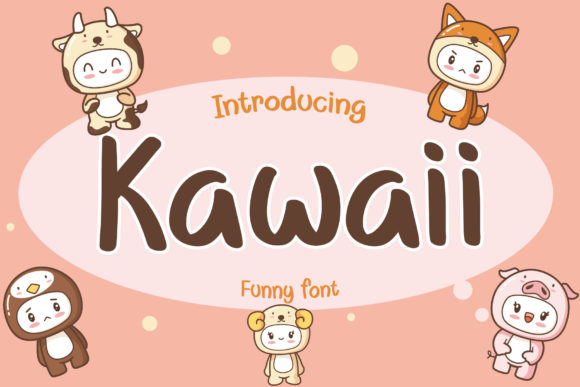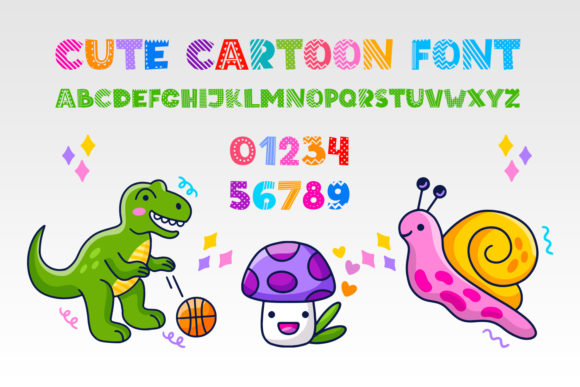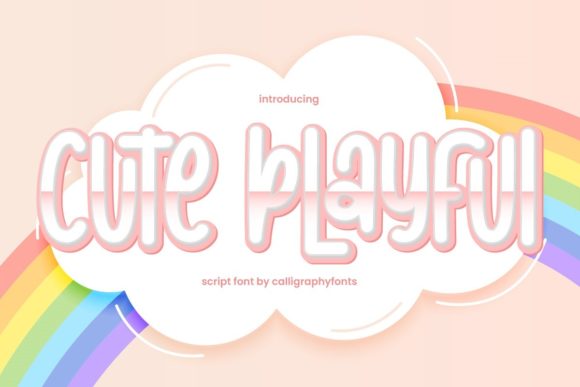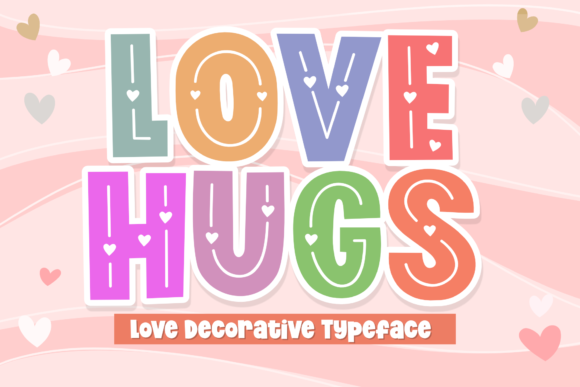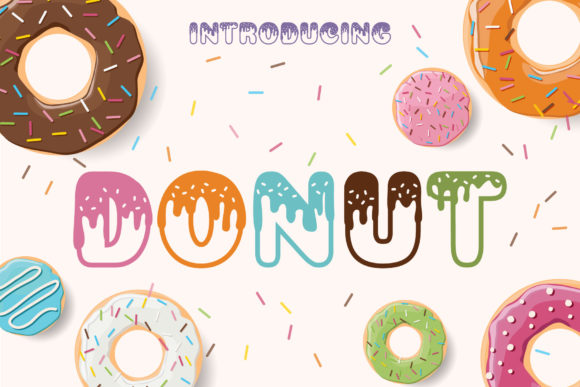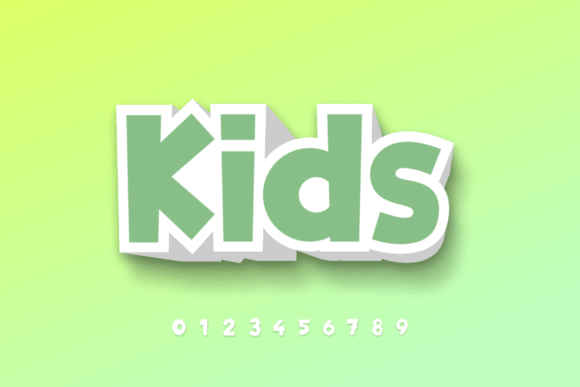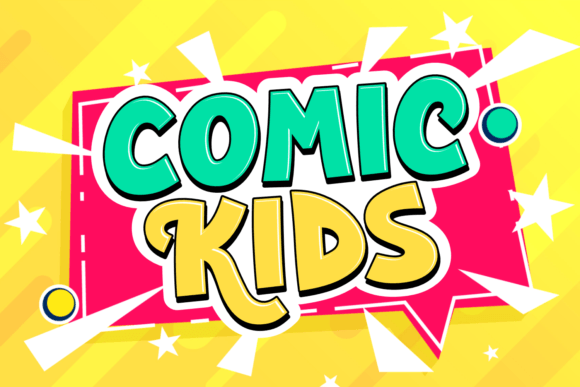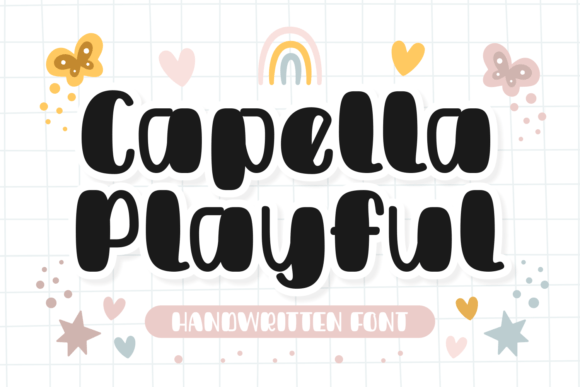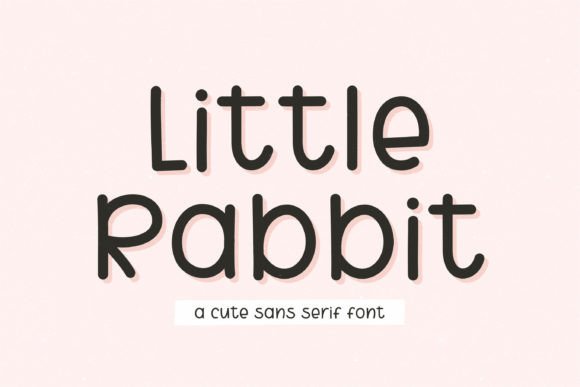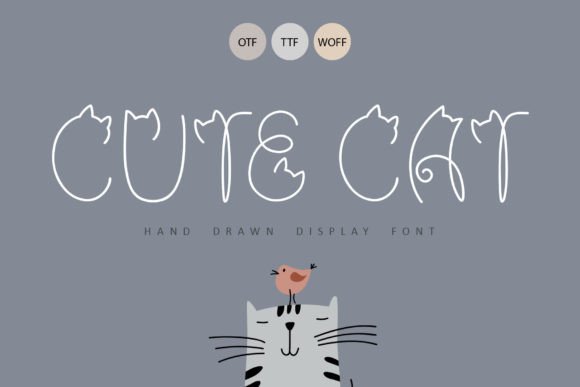
23 Cute Fonts for Kawaii, Kids & Playful Designs
Cute Fonts & Playful Typography
Discover cute fonts for kawaii projects, kids’ designs, playful branding, stickers, invitations, packaging, apparel, social graphics, and creative crafts. These adorable typefaces can add personality, warmth, and a cheerful visual style to your designs.
Why cute fonts work so well: Cute typography can instantly make a design feel friendly, cheerful, playful, and approachable. Kawaii lettering, rounded shapes, whimsical forms, and expressive display styles are especially useful for children’s projects, stickers, invitations, packaging, crafts, apparel, and social media graphics.
How to Choose a Cute Font
Start by thinking about the mood of your project. Kawaii fonts often have a charming and whimsical personality, while kids’ fonts can feel energetic, friendly, and approachable. More general cute fonts can work across invitations, stickers, packaging, crafts, and social media content.
Readability is also important. Decorative fonts are usually most effective for headlines, names, labels, short phrases, and other display text. For longer copy, pair the cute font with a simple sans-serif or serif to create a clear hierarchy.
23 Cute Fonts for Kawaii, Kids & Playful Designs
Here are 23 cute, kawaii, kids, cartoon, and playful fonts for creating cheerful designs. Use them for children’s products, stickers, invitations, apparel, packaging, crafts, logos, social media graphics, and more.
01 · Kawaii Font
Kawaii Font — AquariiD
A kawaii-inspired display font designed for cute and expressive creative work. Its playful character makes it a natural fit for designs that need a charming and cheerful typographic personality.
02 · Kawaii Font
Kawaii Font — Honiiemoon
A cute kawaii display style with a friendly and expressive character. It can bring a playful atmosphere to short headlines, names, labels, and other decorative typography.
03 · Cute Cat Font
Cute Cat Font — Happy Letters
A cute cat-themed display font with a playful personality. It is well suited to projects featuring animal characters, whimsical illustrations, and cheerful children’s or kawaii aesthetics.
04 · Sweet Display Font
Sweet Heart Font
A sweet and playful display style that can add a charming personality to romantic, cheerful, and decorative designs. Its name and character make it particularly suitable for heart-themed and friendly projects.
05 · Cute Display Font
Stay Cute Font
A cheerful cute display font created for playful visual messages. It works especially well when the typography itself is part of the personality of the design.
06 · Kids Font
Kids Font — Color Studio
A playful kids-oriented display style for children’s creative projects. It can bring energy and personality to headlines, educational designs, products, and family-friendly graphics.
07 · Playful Kids Font
Playful Kid Font
A playful typeface designed around a youthful and cheerful direction. It can add a friendly visual touch to children’s projects and other lighthearted designs.
08 · Cute Playful Font
Cute Playful Font
A cute and playful display style for cheerful graphic projects. It can help make short phrases, titles, and decorative elements feel friendly and expressive.
09 · Cartoon Font
Cute Cartoon Font — OWPictures
A cute cartoon-inspired display font for playful and illustrated designs. It can add a youthful quality to headlines and short phrases in children’s and entertainment-focused projects.
10 · Cute Font
Cute Font — Jan Jao Studio
A cute display typeface for cheerful and decorative projects. It can bring a friendly personality to names, headlines, labels, and short phrases.
11 · Kids Font
Kids Font — kalingga.albert
A children’s display style designed for playful and friendly visual projects. It can work well for short headlines and decorative typography in kid-focused designs.
12 · Kids Display Font
Kidszone Font
A playful display font centered around children’s design applications. Its youthful direction can add a cheerful typographic element to projects for kids and families.
13 · Kawaii Font
Barbie Kawaii Font
A kawaii-inspired display style with a playful fashion-oriented character. It can be used for colorful, cute, and expressive projects where the typography needs to feel youthful and decorative.
14 · Playful Font
Playful Font — jinanstd
A playful display font designed to give typography a cheerful and expressive quality. It can work across a range of lighthearted design applications.
15 · Playful Font
Playful Font — Pila Studio
A cheerful display style for designs that need a playful typographic presence. It is suitable for short headlines, names, labels, and other decorative text.
16 · Playful Typography
Playful Font — Pasha Larin
A playful display font for expressive and cheerful design compositions. It can add visual personality to short text and decorative headline treatments.
How many fonts should I use in a cute design?
One main decorative font paired with one simple supporting typeface is often enough. This creates a clear hierarchy while allowing the cute font to remain the main visual element.
Can cute fonts be used for social media graphics?
Absolutely. Cute fonts are well suited to short social media headlines, announcements, quote graphics, product posts, reels covers, thumbnails, and other visual content where typography needs to attract attention.